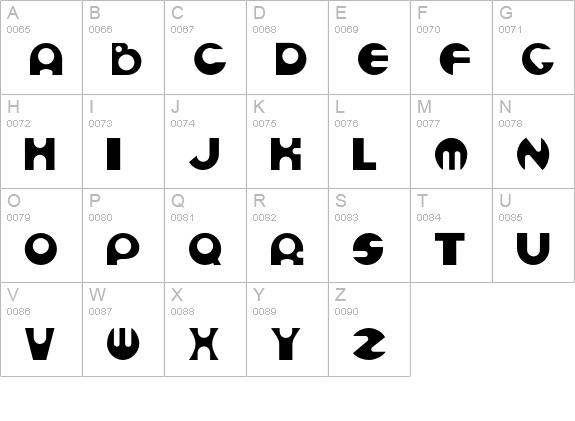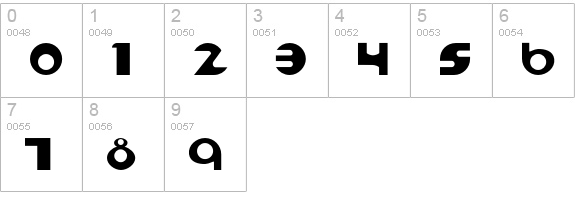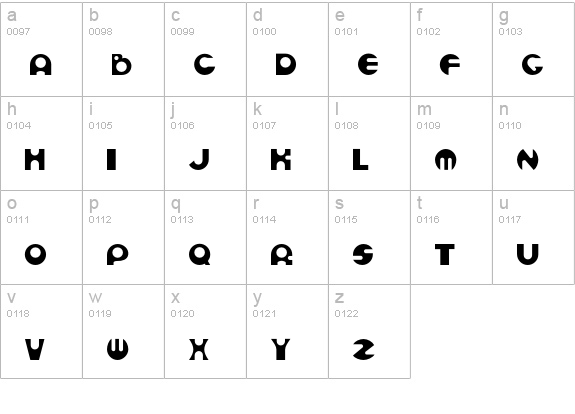
ESpheres Font Details
ESpheres is a modern and stylish font that combines elegance with a touch of playfulness. Its rounded edges give it a soft and friendly appearance, making it perfect for a wide range of design projects. Whether you are creating a logo, poster, or website, ESpheres will add a unique and eye-catching element to your work. This versatile font is available in a variety of weights and styles, allowing you to customize your designs to suit your needs. ESpheres is free to download at FontsMarket.com, making it accessible to everyone looking to add a touch of creativity to their projects. With its clean lines and contemporary feel, ESpheres is sure to make a bold statement in any design. Download it today and let your creativity soar with this visually striking font.